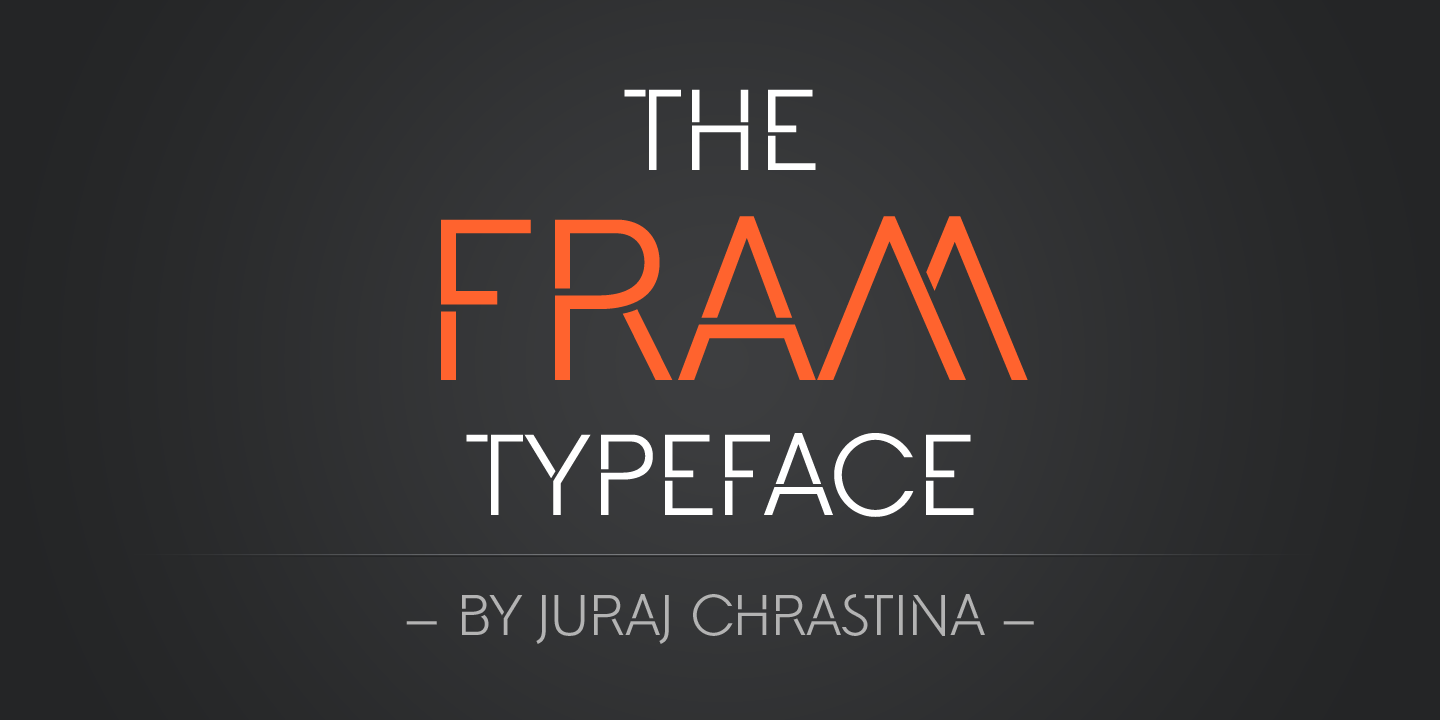
If you’re seeking a clean, versatile sans-serif font, Fram Font Free Download is a fantastic choice. With its minimalist design and balanced proportions, Fram brings clarity and professionalism to your branding, editorial projects, web design, and more.
Fram Font Free Download offers excellent readability and a sleek modern aesthetic, making it perfect for both digital and print media. Its neutral yet stylish character allows it to blend seamlessly into a wide variety of design styles.
Ideal for startups, agencies, and creative professionals, Fram elevates your projects with clean lines and timeless appeal.